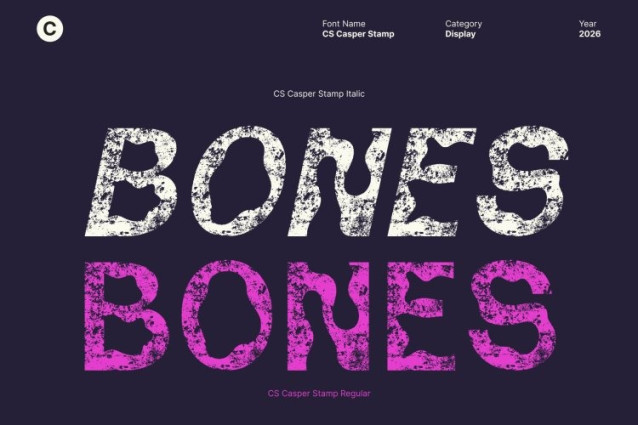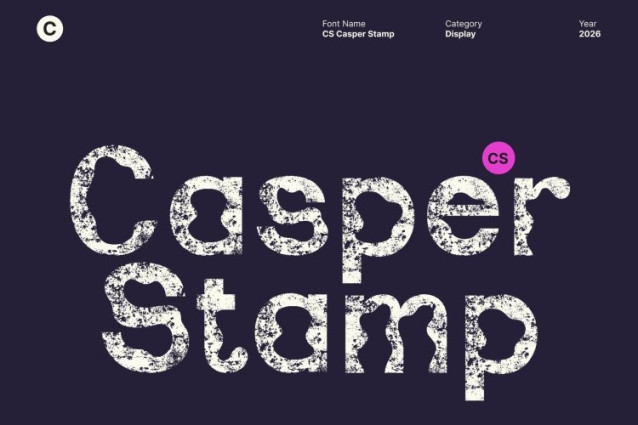
CS Casper Stamp Font
CS Casper Stamp Font This is a display sans-serif font infused with psychedelic flair and enhanced by a distinctive stamp texture. Featuring distorted letterforms, fluid shapes, and playful proportions, this font delivers a bold visual impact. The stamped effect adds a vintage, handcrafted feel that deepens its artistic character while amplifying its expressive, unconventional style.
Imaginative Forms with Funky, Textured Energy
The psychedelic influence in this font creates a lively and experimental look full of movement and personality. Unusual shapes and dynamic forms are combined with stamped imperfections, resulting in a font that feels raw, funky, and visually electric. This texture adds depth and authenticity, making every letter feel alive and expressive.
Perfect for Music Events and Experimental Design
Ideal for music festival posters, album artwork, event promotions, merchandise, and experimental graphics, brings vibrant creativity to any project. Its psychedelic shapes and vintage stamp texture make it especially effective for visuals that aim to feel bold, playful, and unforgettable.
Versatile for Artistic and High-Energy Projects
From promotional visuals to creative branding and statement typography, offers a unique solution for designers seeking energy and originality. Its fusion of psychedelic design and stamped texture ensures a distinctive, eye-catching presence that captures the spirit of artistic freedom and retro-inspired expression